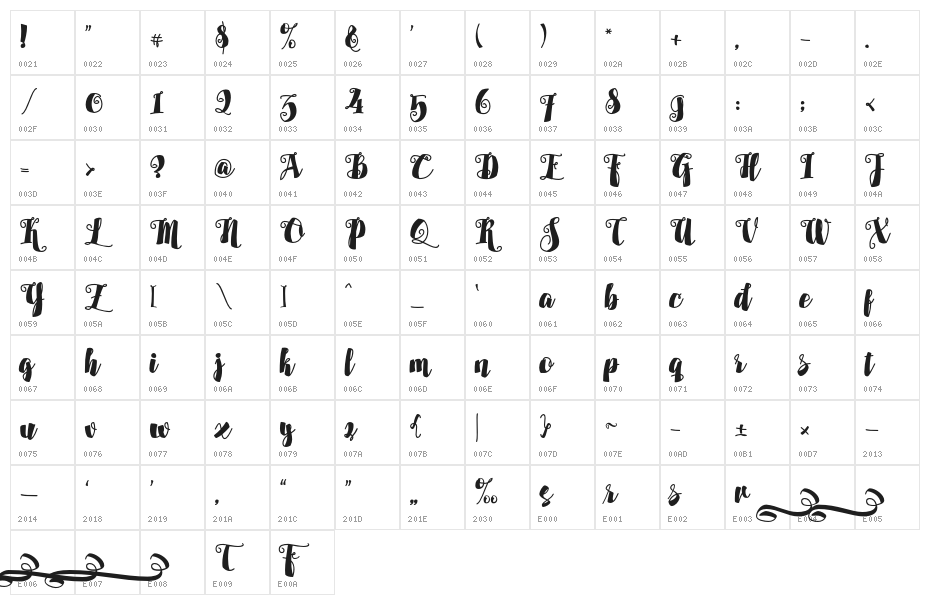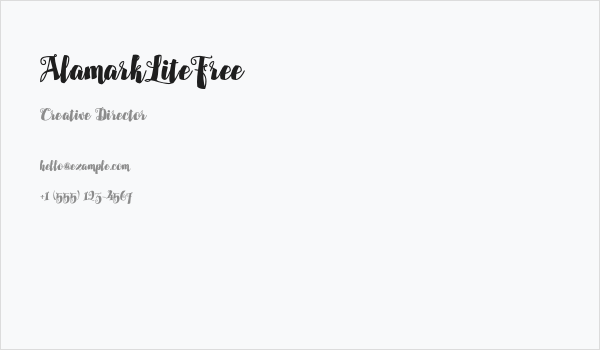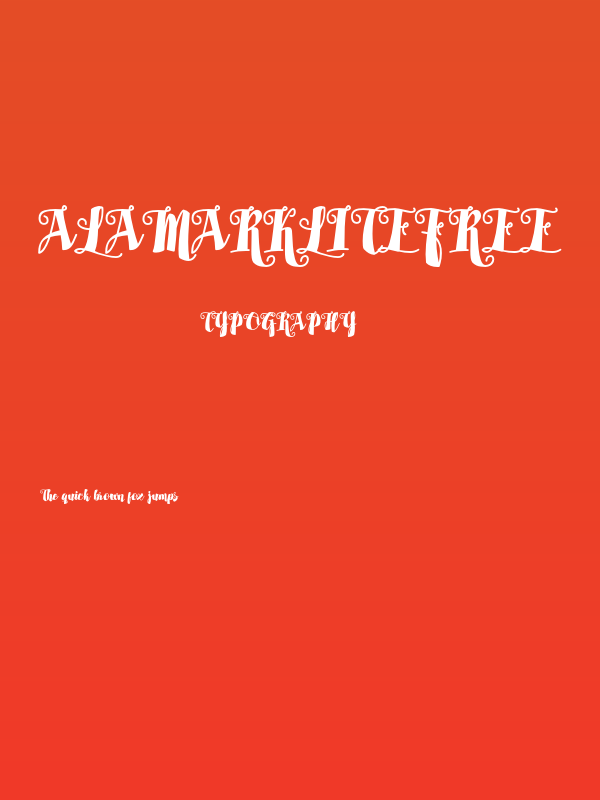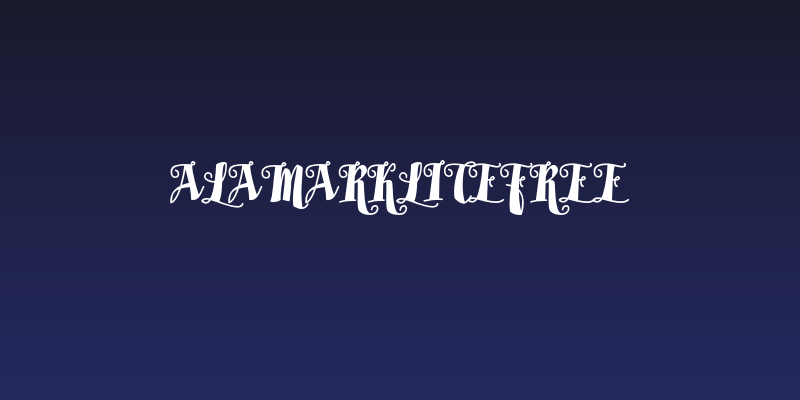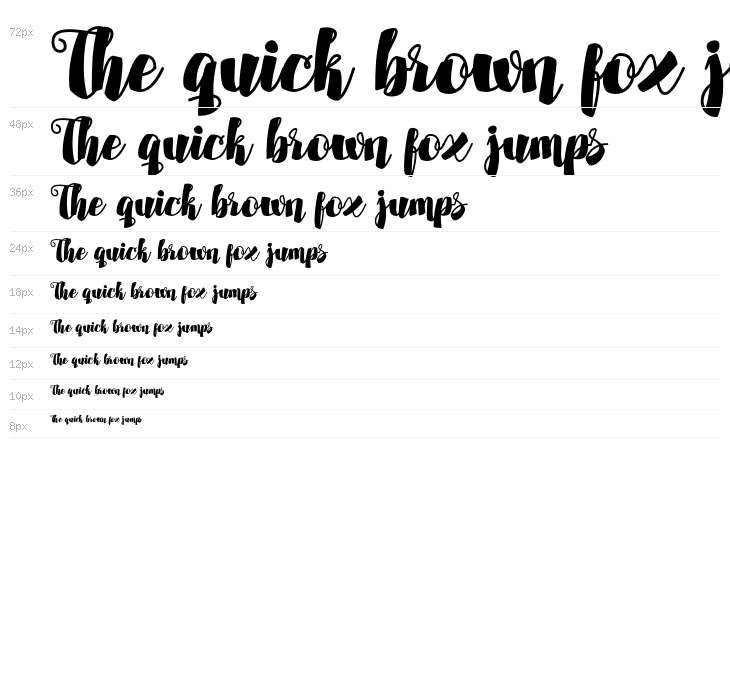
AlamarkLiteFree Font
AlamarkLiteFree Description
This font features a bold and expressive script style with a playful and whimsical flair. The letters are characterized by their flowing, cursive forms and exaggerated loops, giving it a dynamic and lively appearance. The uppercase letters are particularly ornate, with intricate swirls and flourishes that add a touch of elegance and sophistication. The lowercase letters maintain a consistent style, complementing the uppercase with their own unique charm. The numbers and special characters follow the same decorative theme, ensuring a cohesive look across all elements. This font is perfect for projects that require a touch of creativity and personality.